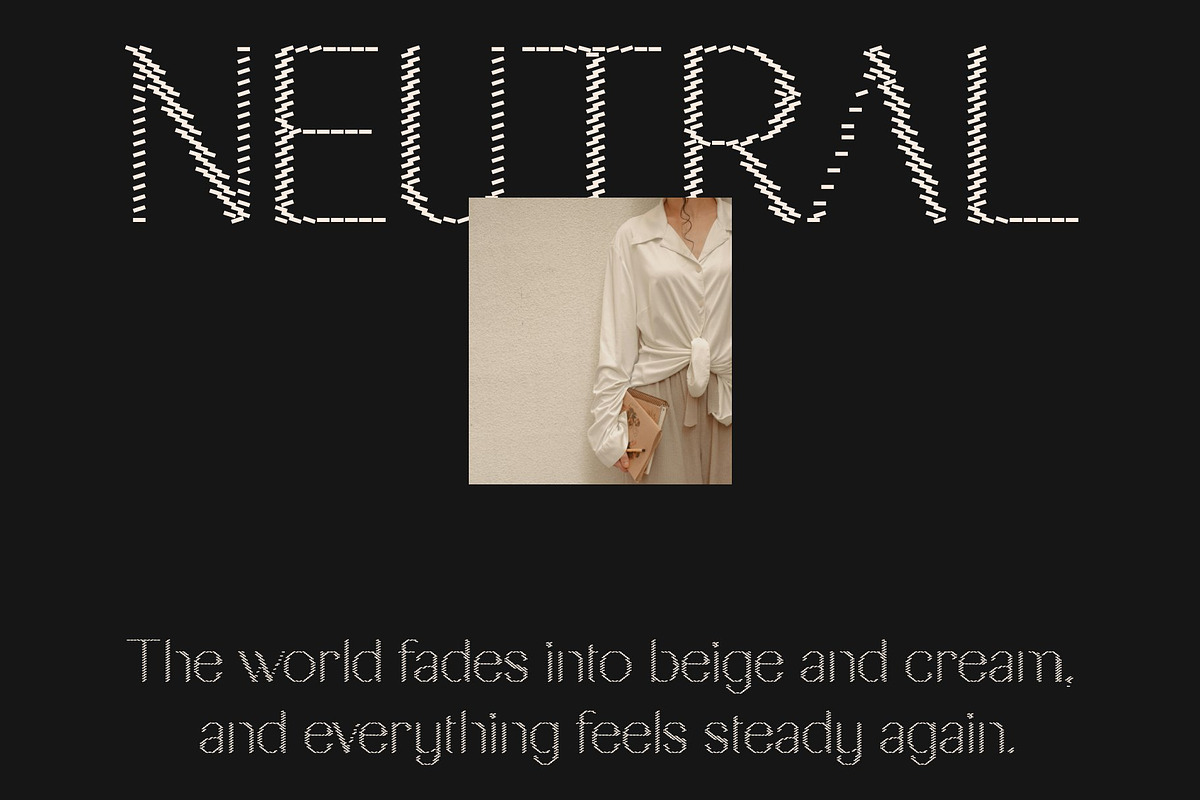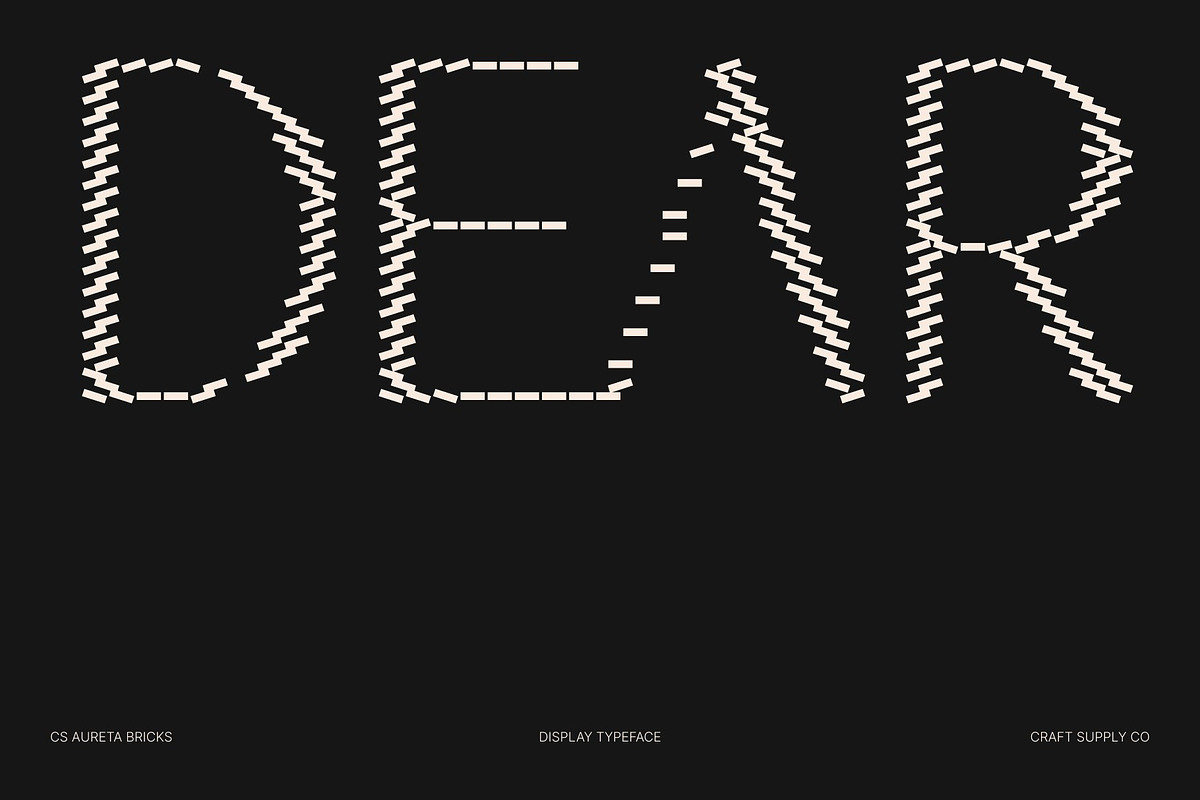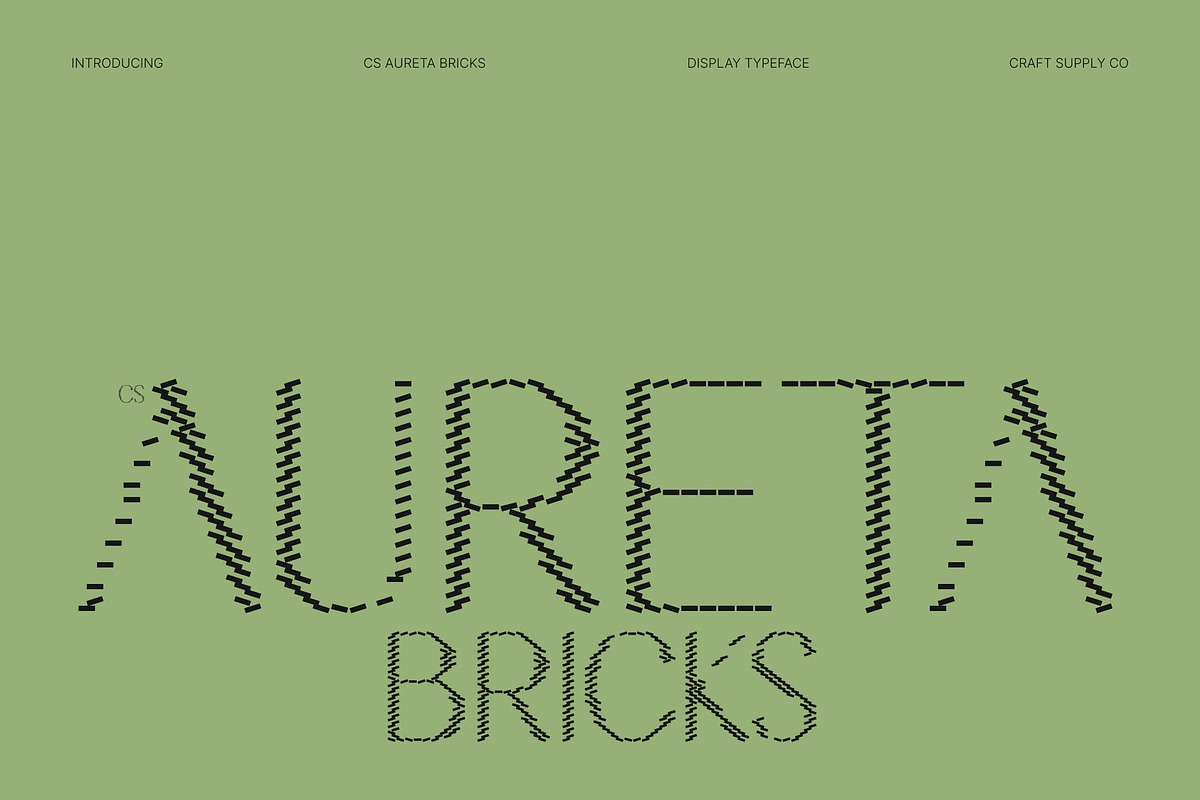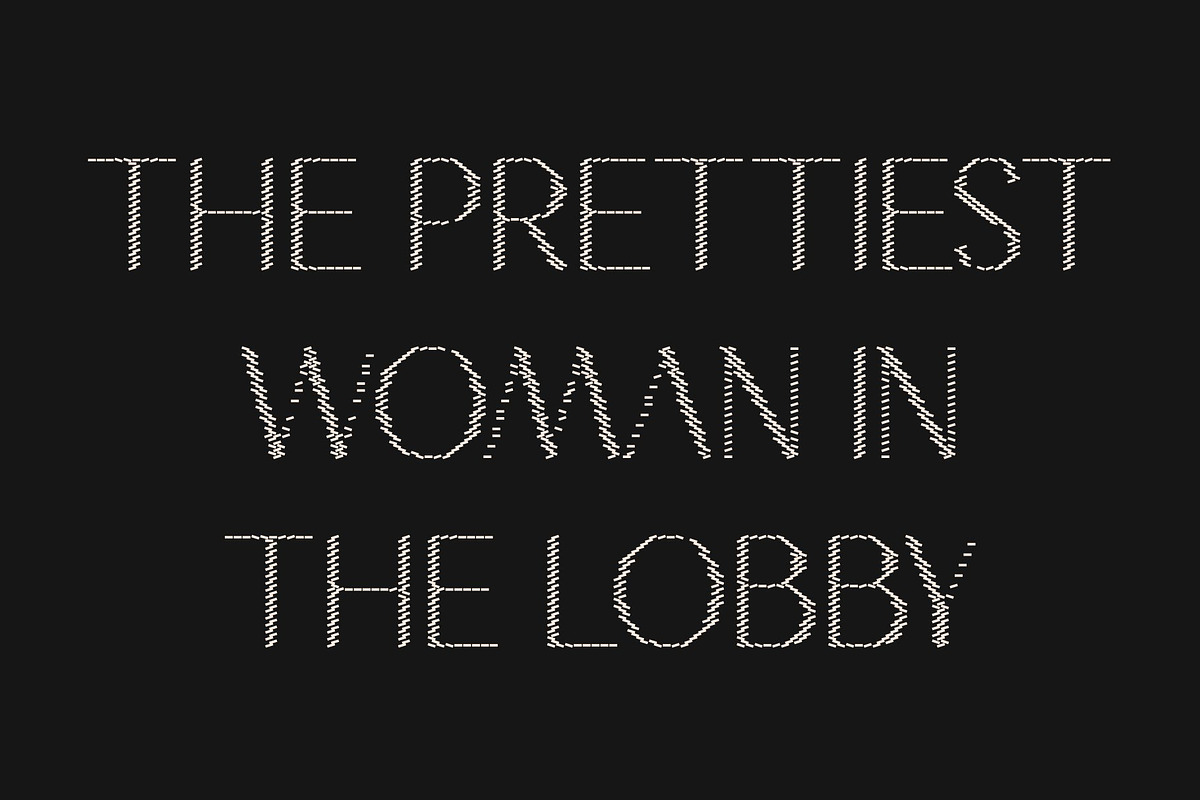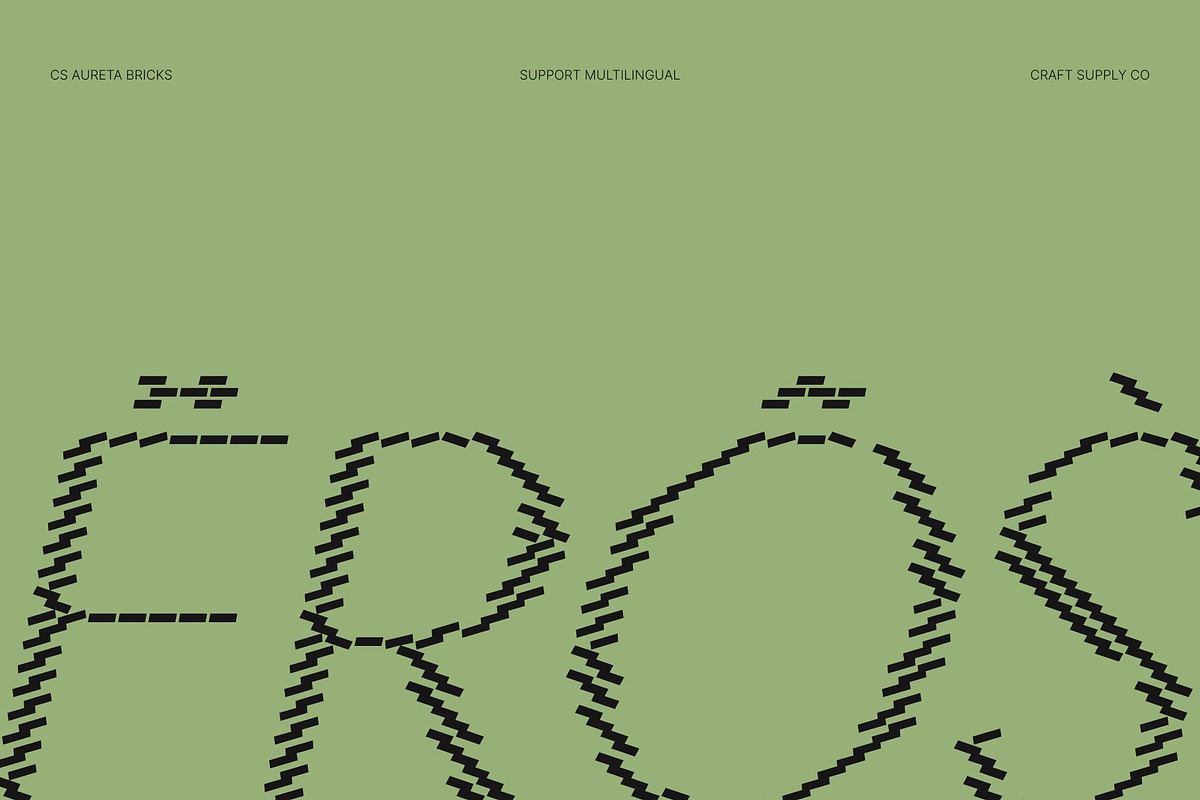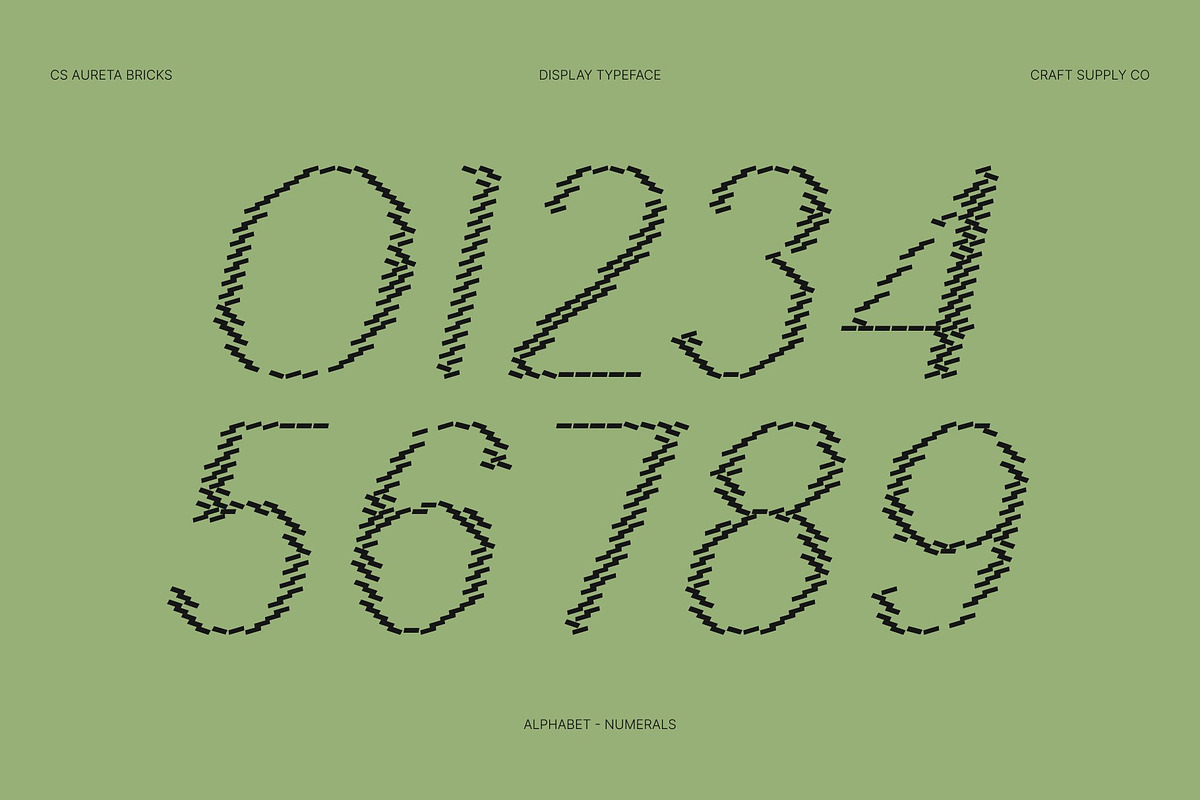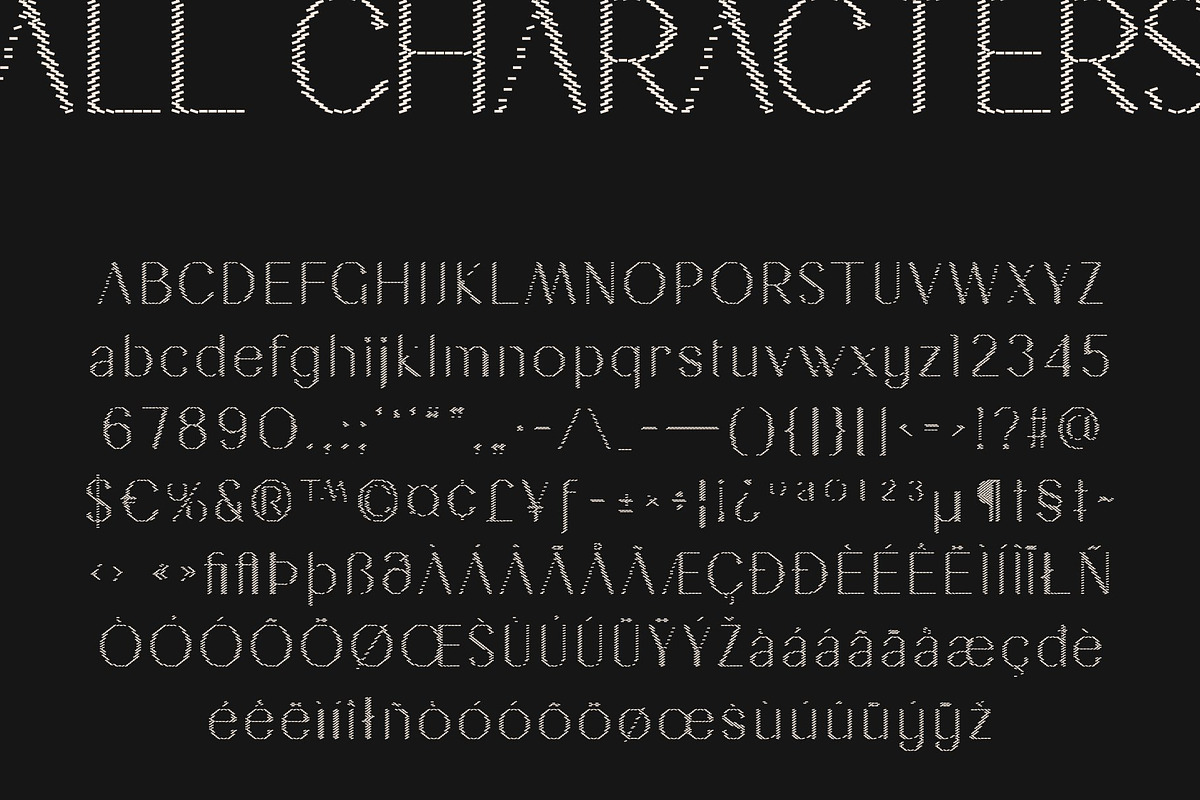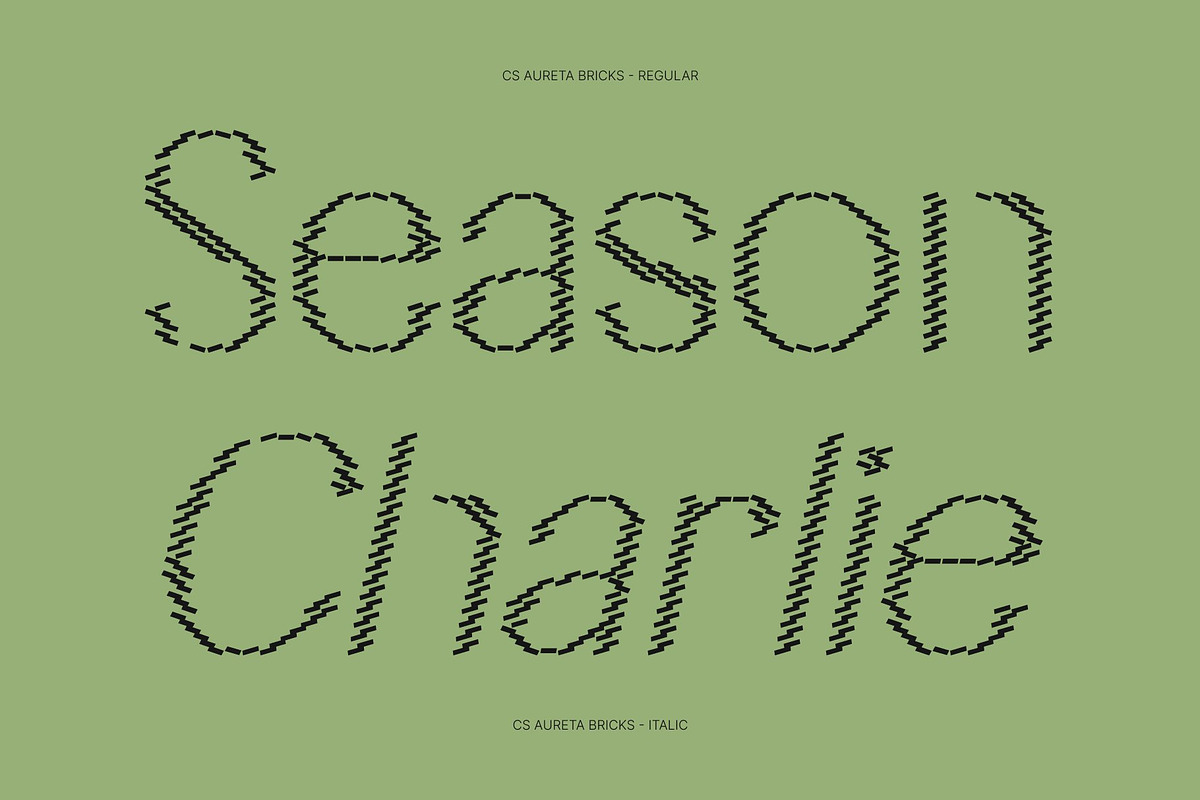
CS Aureta Bricks
CS Aureta Bricks – Elegant Sans Serif Font: Where Modern Elegance Meets Architectural Texture
Clean Contemporary Forms with Structured Character This is an elegant sans serif font that blends modern sophistication with a distinctive brick-inspired decorative texture. Its clean and refined sans serif construction creates a stylish and highly legible appearance, while the brick detailing gives the letters a structured architectural feel.
Brick Texture with Modern Visual Precision Designed to resemble letters built from decorative bricks, this font introduces a tangible textured effect without sacrificing clarity or refinement. The brick-inspired details add depth, construction-inspired strength, and visual uniqueness while maintaining a polished and contemporary appearance suitable for modern design applications.
Elegant Style with Urban Strength This font delivers a typographic identity that feels trendy, structured, and visually impactful. Its balanced forms create a versatile atmosphere that works beautifully across both sophisticated branding and energetic display compositions.
Perfect for Branding, Posters, and Urban-Themed Design This font ideal for property branding, retro arcade games, gym and sports logos, action movie posters, city-themed graphics, and architectural creative projects. Its elegant structure and brick-inspired texture make it perfect for logos, merchandise, promotional graphics, signage, and modern visual identities.
CS Aureta Bricks Regular
CS Aureta Bricks Italic